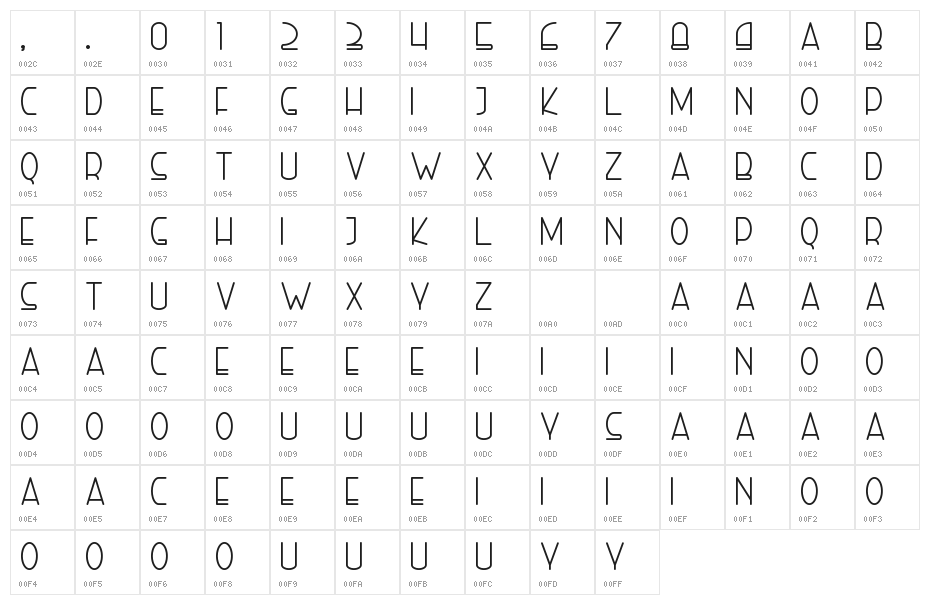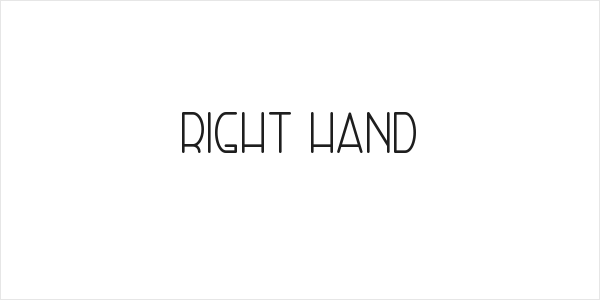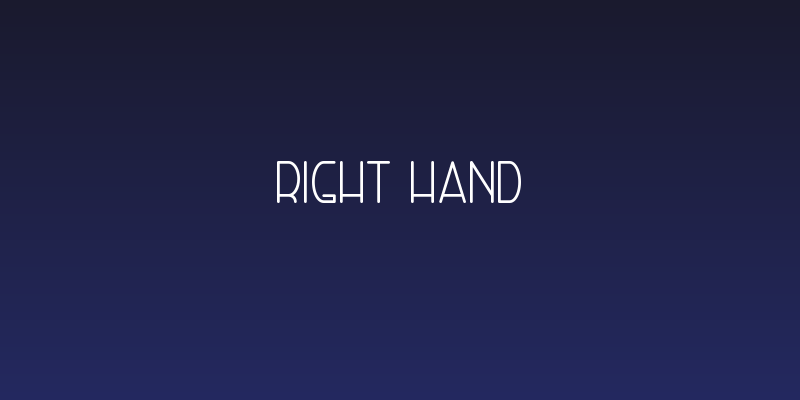
Right Hand Font
Right Hand Description
This font features a modern and geometric design with clean, rounded edges and a uniform stroke width. The characters are constructed with a minimalist approach, emphasizing simplicity and clarity. The uppercase and lowercase letters share a consistent style, maintaining a cohesive look across the alphabet. The numerals are distinct and easy to read, with a similar geometric structure. Special characters are included, matching the overall aesthetic. The font's design is suitable for contemporary projects, offering a sleek and professional appearance.
| Use Case | Headlines, Logos, Digital interfaces |
| Proposed Projects | Ideal for branding, digital interfaces, signage, and modern print materials. |